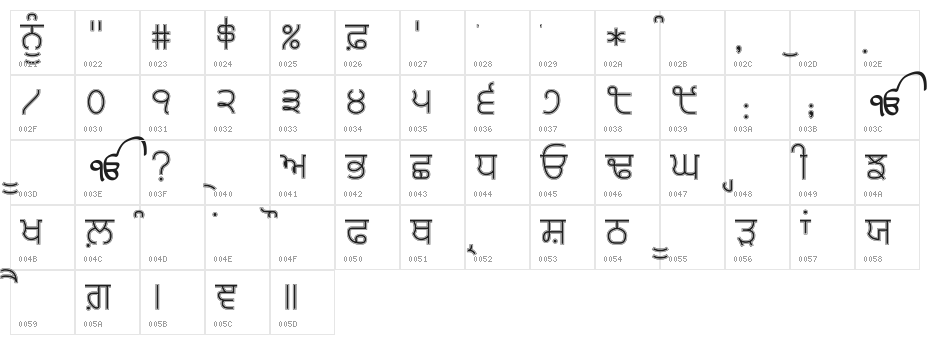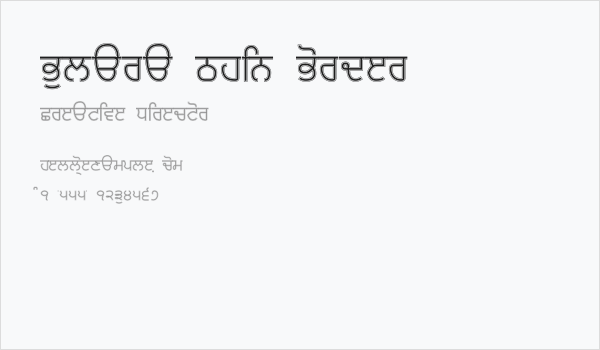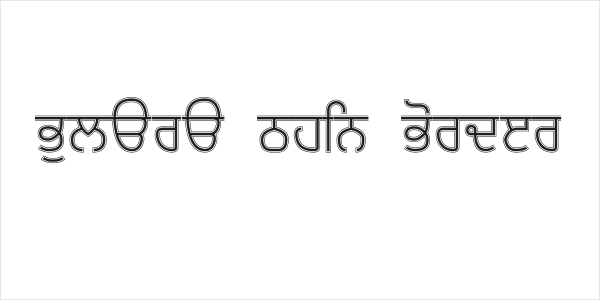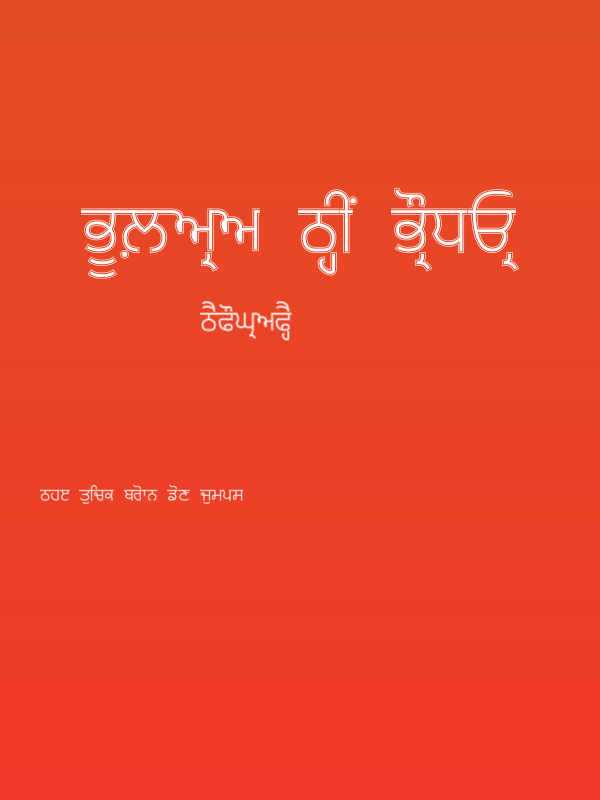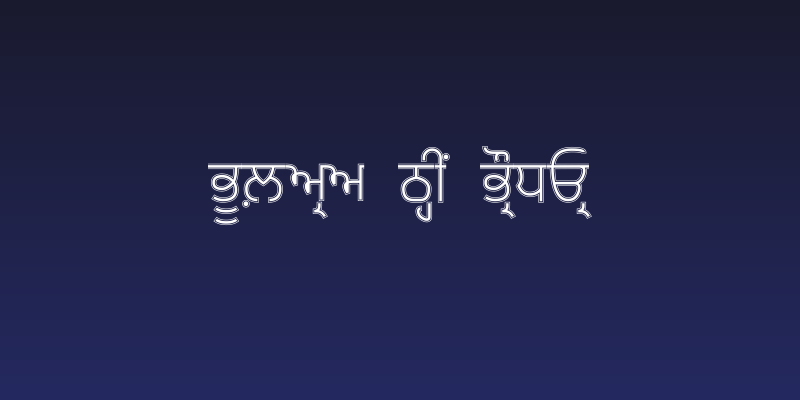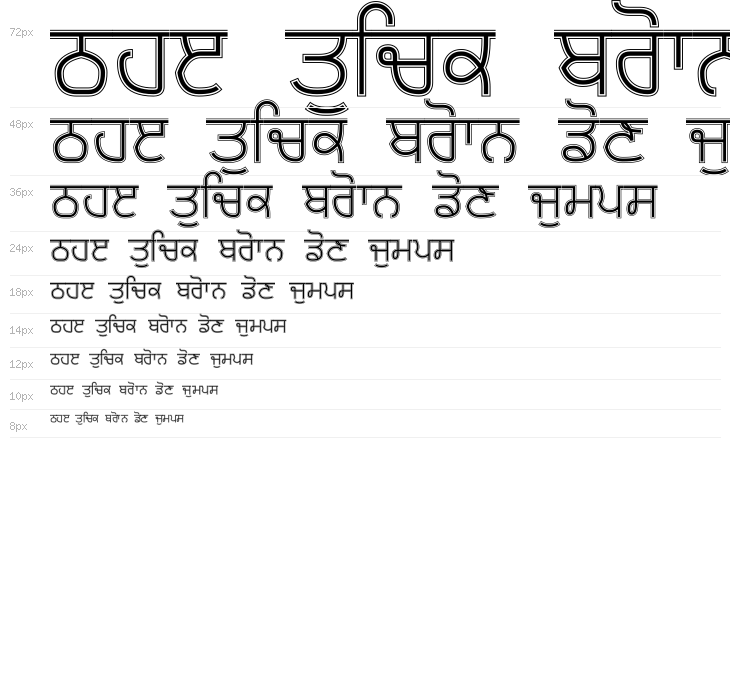
Bulara Thin Border Font
Bulara Thin Border Description
This font features a unique and intricate design with a thin border around each character, giving it a distinct and decorative appearance. The characters are bold and have a geometric structure, with a consistent line thickness that creates a harmonious and balanced look. The font includes a full set of numerals and special characters, making it versatile for various uses. The style is modern yet retains a classic touch, making it suitable for both contemporary and traditional projects. The spacing between characters is normal, ensuring readability while maintaining its decorative appeal.
| Use Case | Logos, Posters, Headlines |
| Proposed Projects | Ideal for branding, logos, posters, and any project requiring a decorative and eye-catching typeface. |